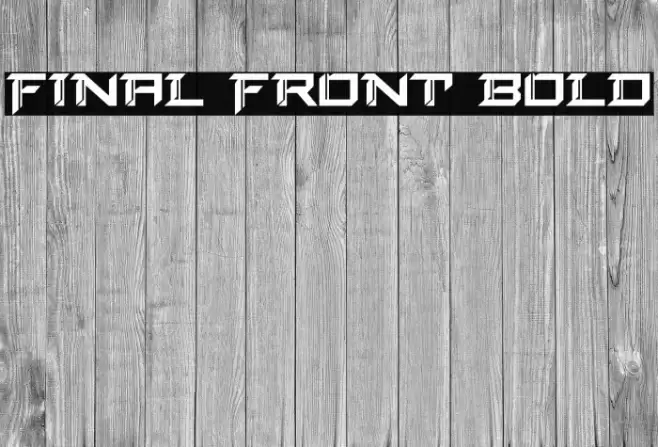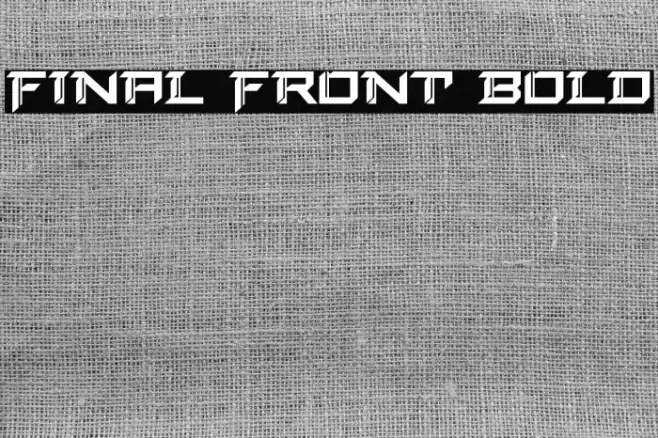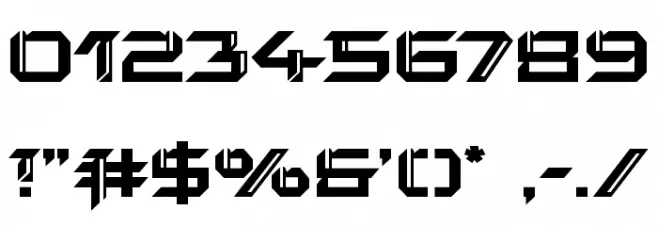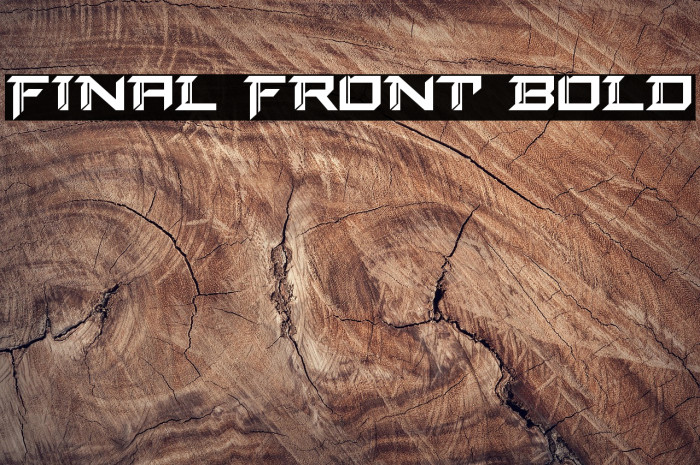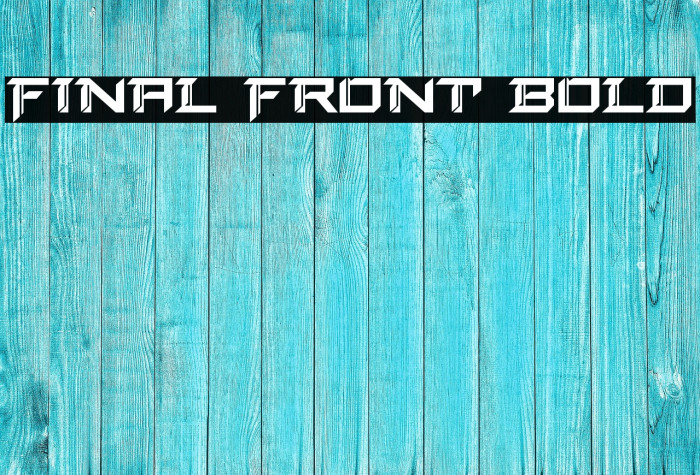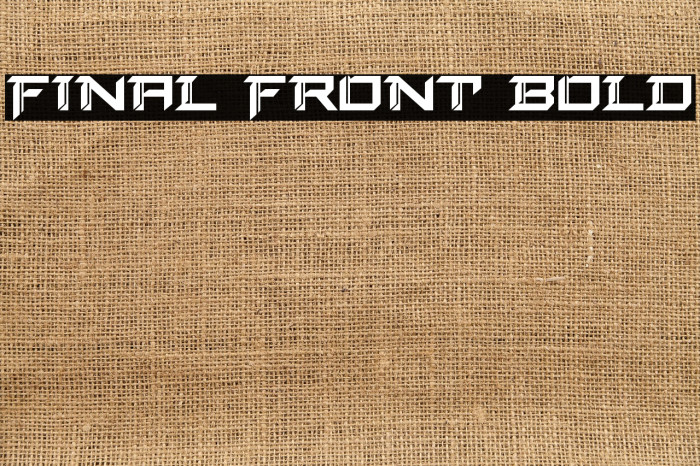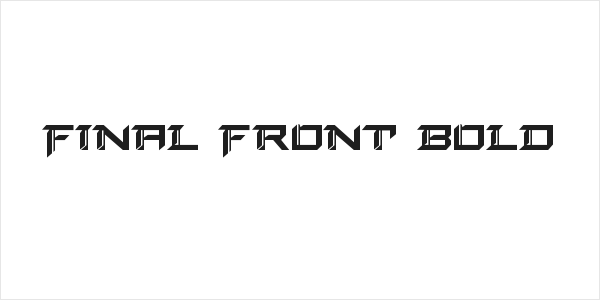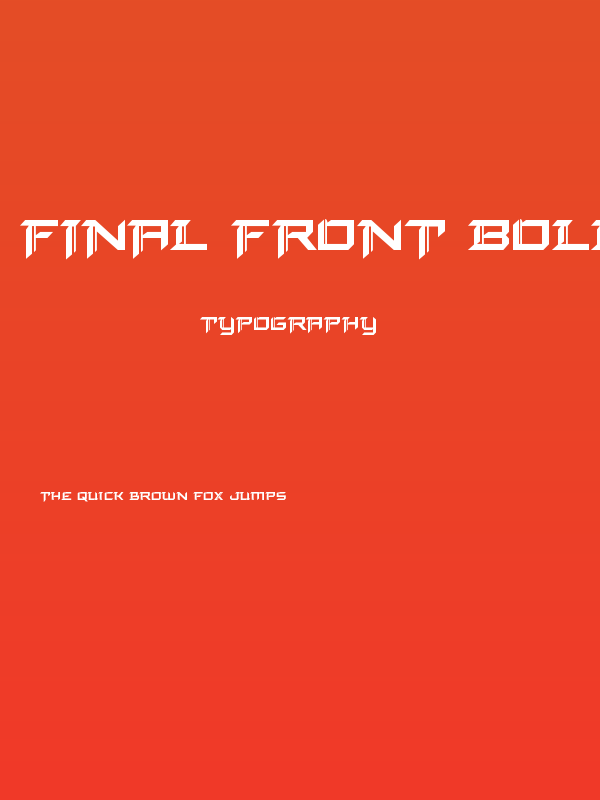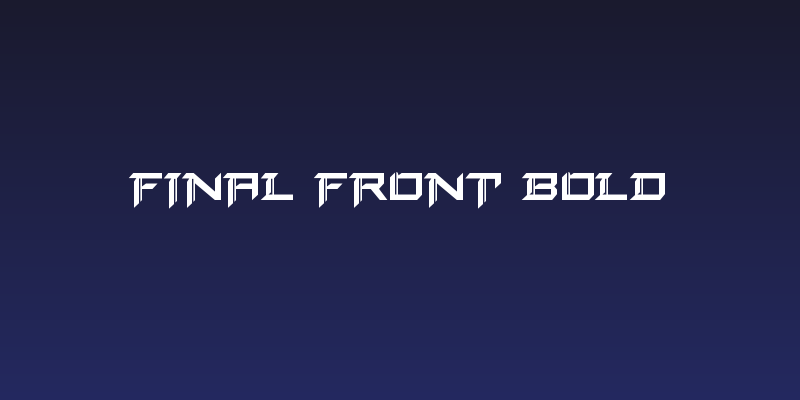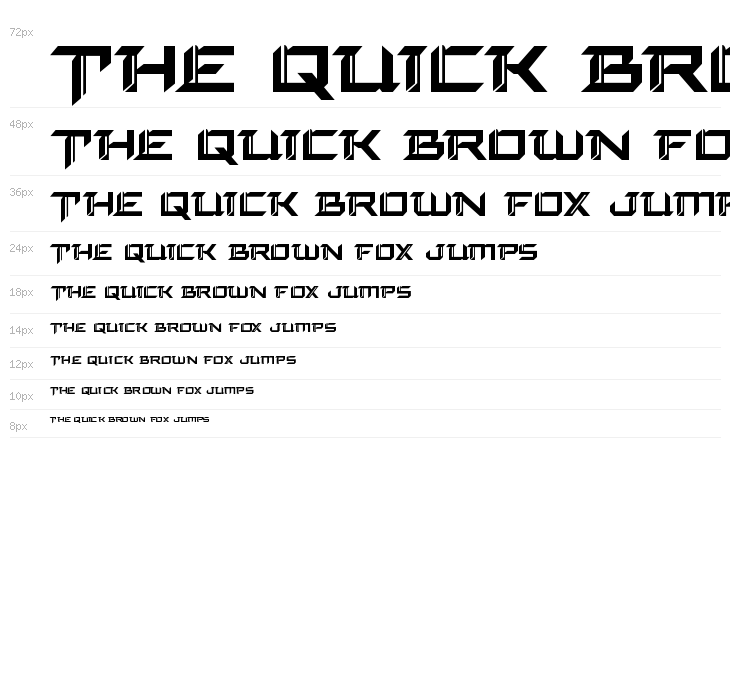
Final Front Bold Font
Final Front Bold Description
This font features a bold, angular design with a futuristic and edgy appearance. The characters are constructed with sharp, geometric lines and a distinct three-dimensional effect, giving them a dynamic and impactful look. The uppercase and lowercase letters maintain a consistent style, with each character exhibiting a unique, stylized cut that enhances its modern aesthetic. The numbers and special characters follow the same design principles, ensuring uniformity across the entire typeface. This font's strong visual presence makes it suitable for attention-grabbing applications.
A bold, angular font with a futuristic and edgy design from Uncategorized fonts.
- Proposed Projects: Ideal for sci-fi themed projects, video game titles, posters, and branding that requires a modern, high-tech look.